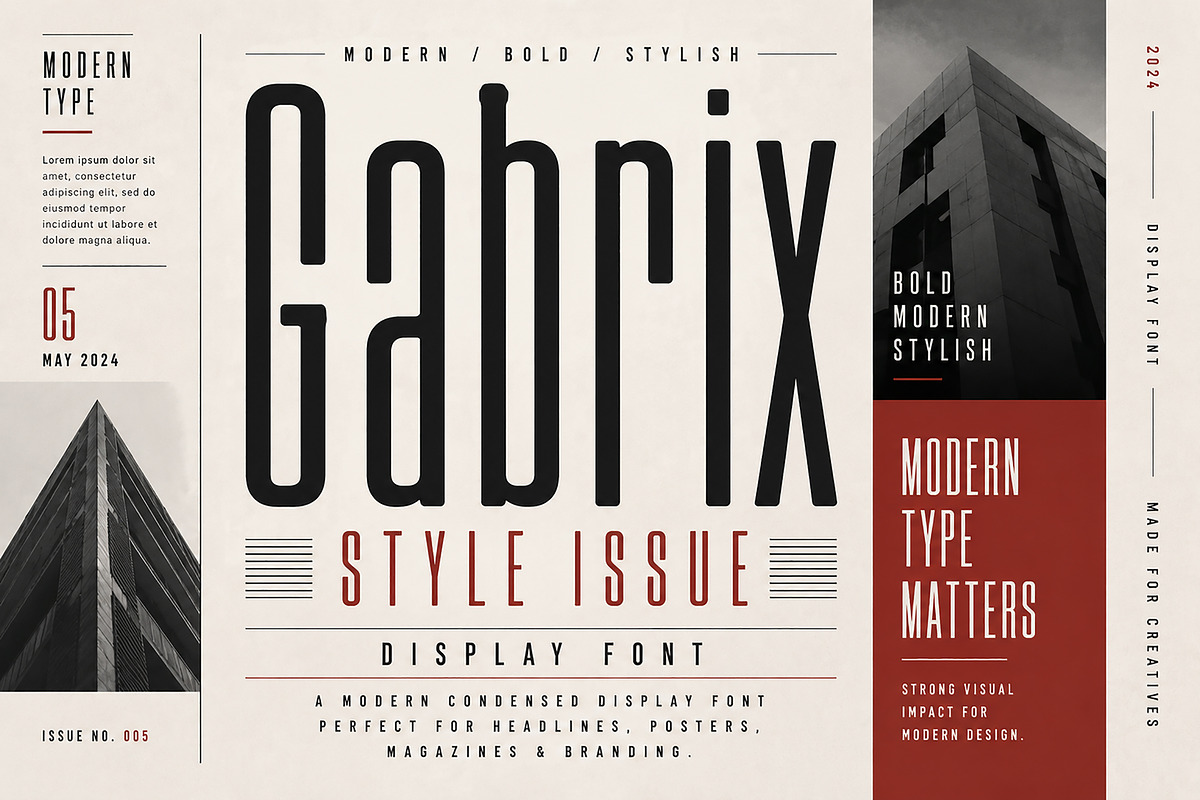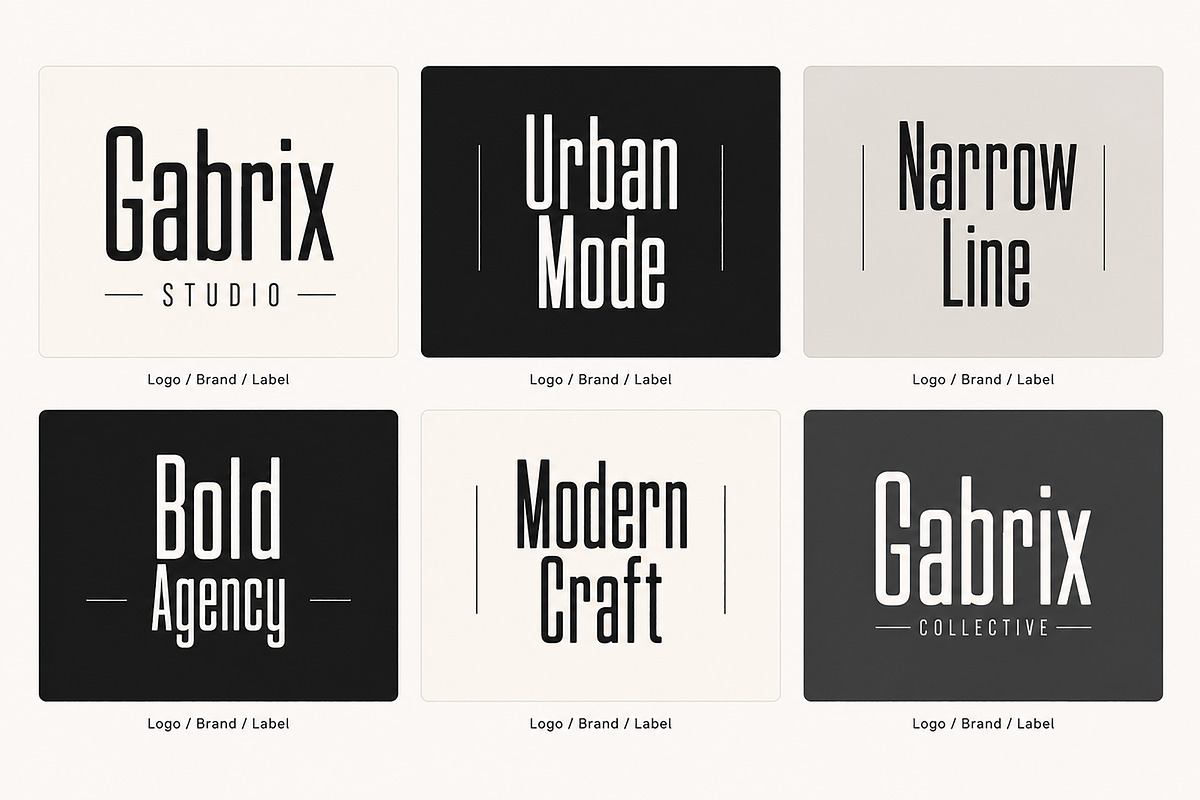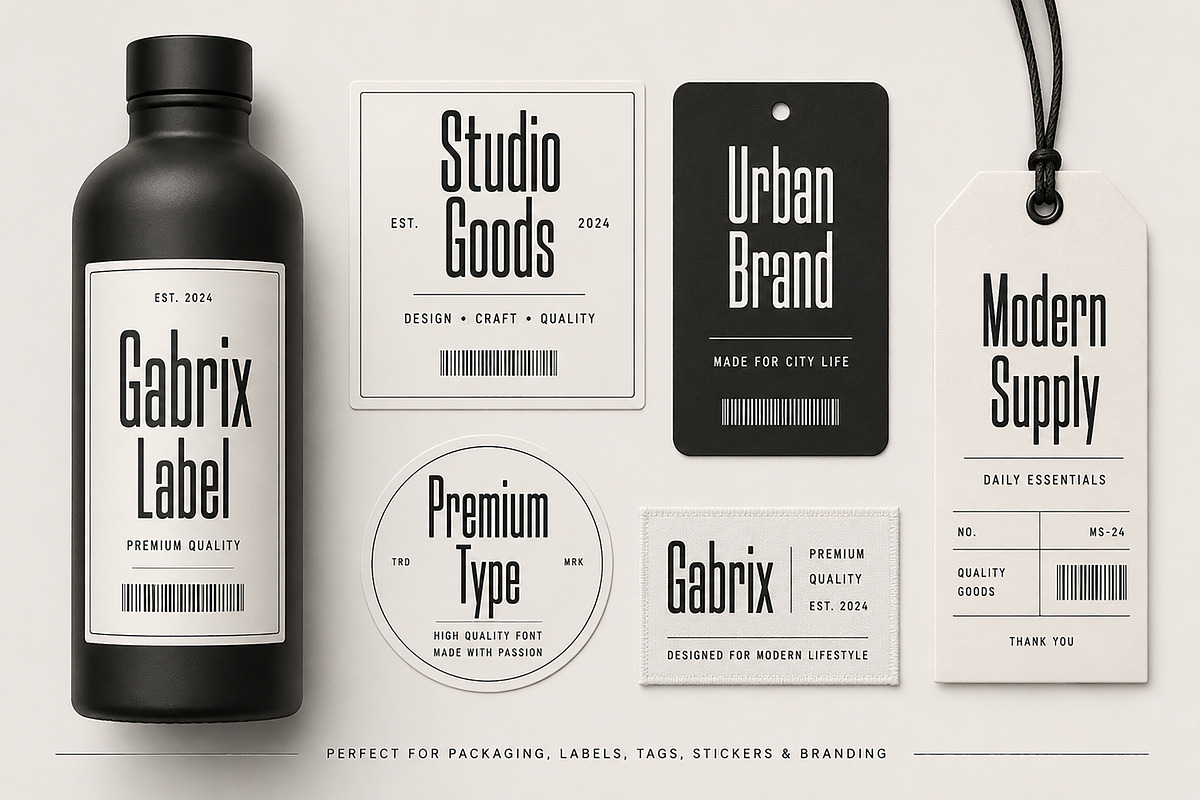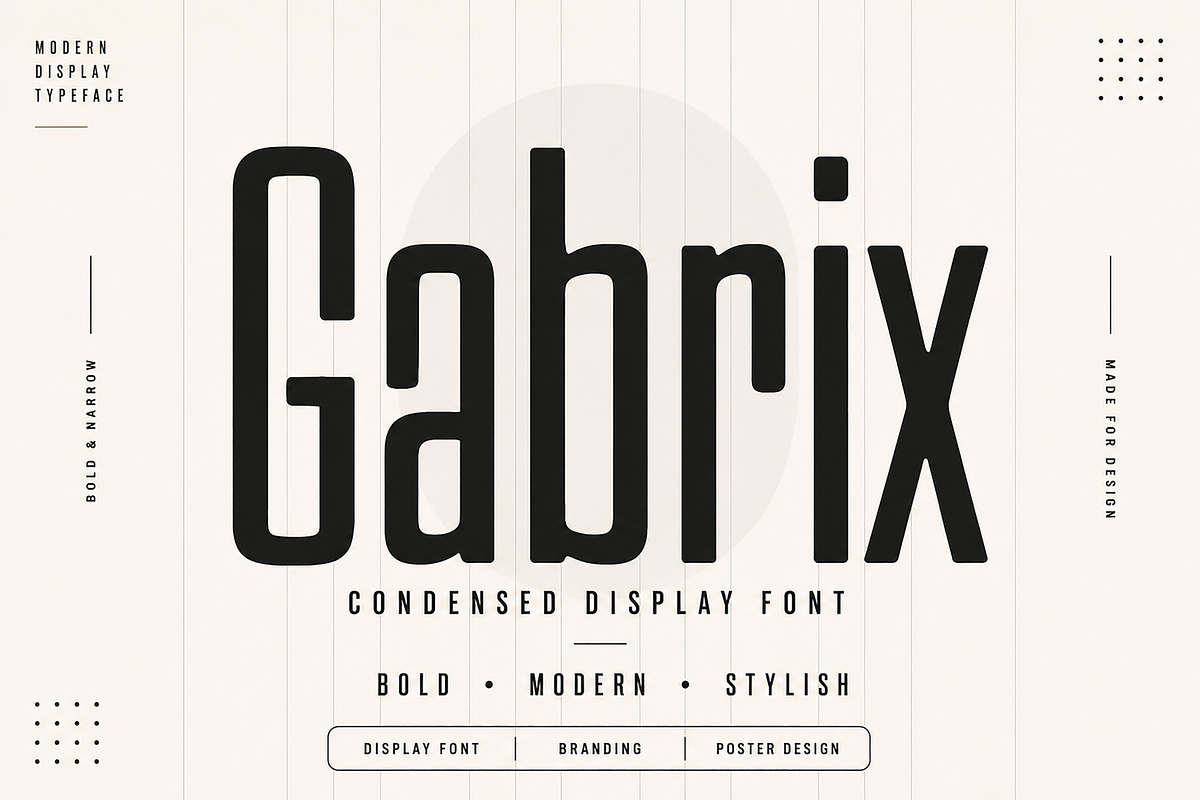
Gabrix – Modern Display Font
Gabrix – Modern Condensed Display Font
Short Description
Gabrix is a bold modern condensed display font featuring tall, clean letterforms. Perfect for logos, branding, editorial design, posters, packaging, labels, and contemporary creative projects.
Introducing Gabrix, a bold and modern condensed display font designed to make a strong visual impact. Featuring tall, narrow letterforms with a clean geometric structure, Gabrix is perfect for creating eye-catching headlines, stylish logos, premium branding, editorial layouts, posters, packaging, and contemporary visual identities.
Its sleek and minimal appearance makes it an excellent choice for designers looking for a professional condensed typeface that stands out while maintaining exceptional readability. Whether you're designing a fashion campaign, magazine cover, product label, or branding project, Gabrix delivers a sophisticated and modern aesthetic.
Brand Identity
Editorial & Magazine Layouts
Posters
Product Labels
Clothing Brands
Website Headlines
Advertising
Business Cards
Modern Signage
Creative Projects
Minimal Design
Modern Condensed Display Style
Bold & Clean Letterforms
Tall Narrow Proportions
Strong Visual Impact
Minimal & Professional Look
Excellent for Large Headlines
Easy to Read
High-Quality Design
Perfect for Print & Digital Projects